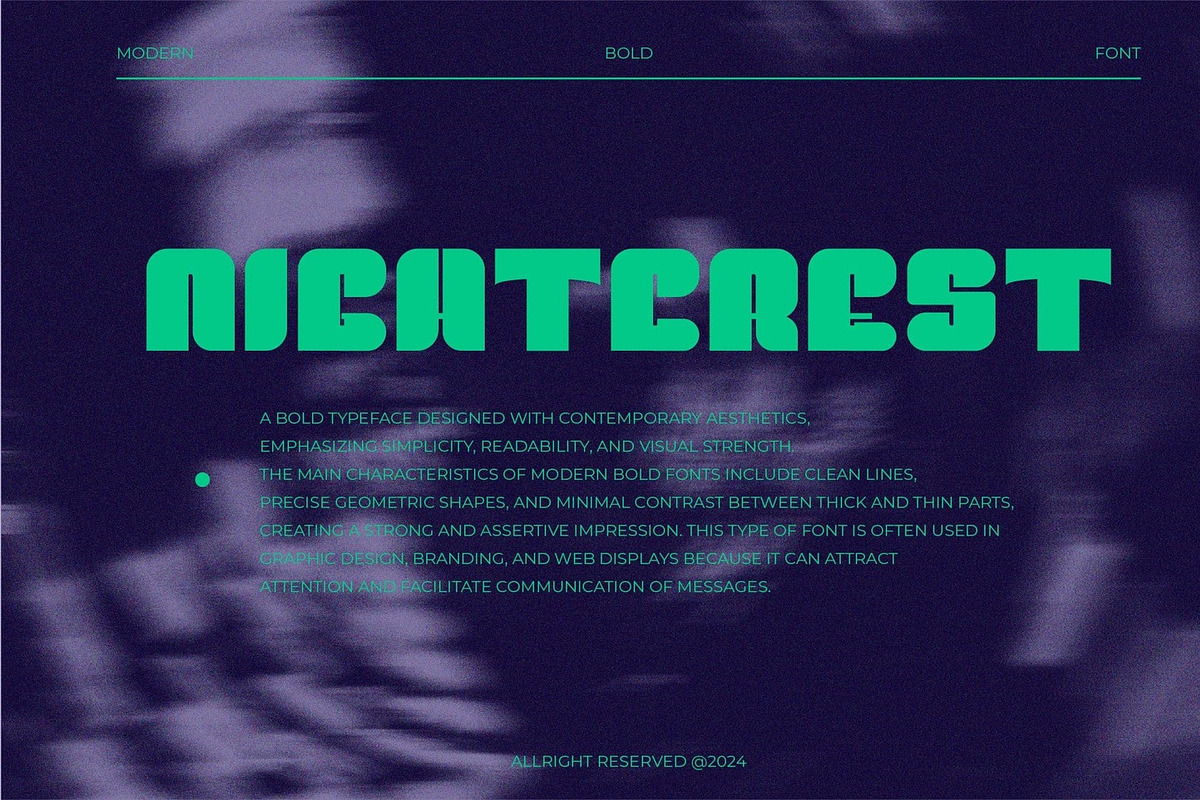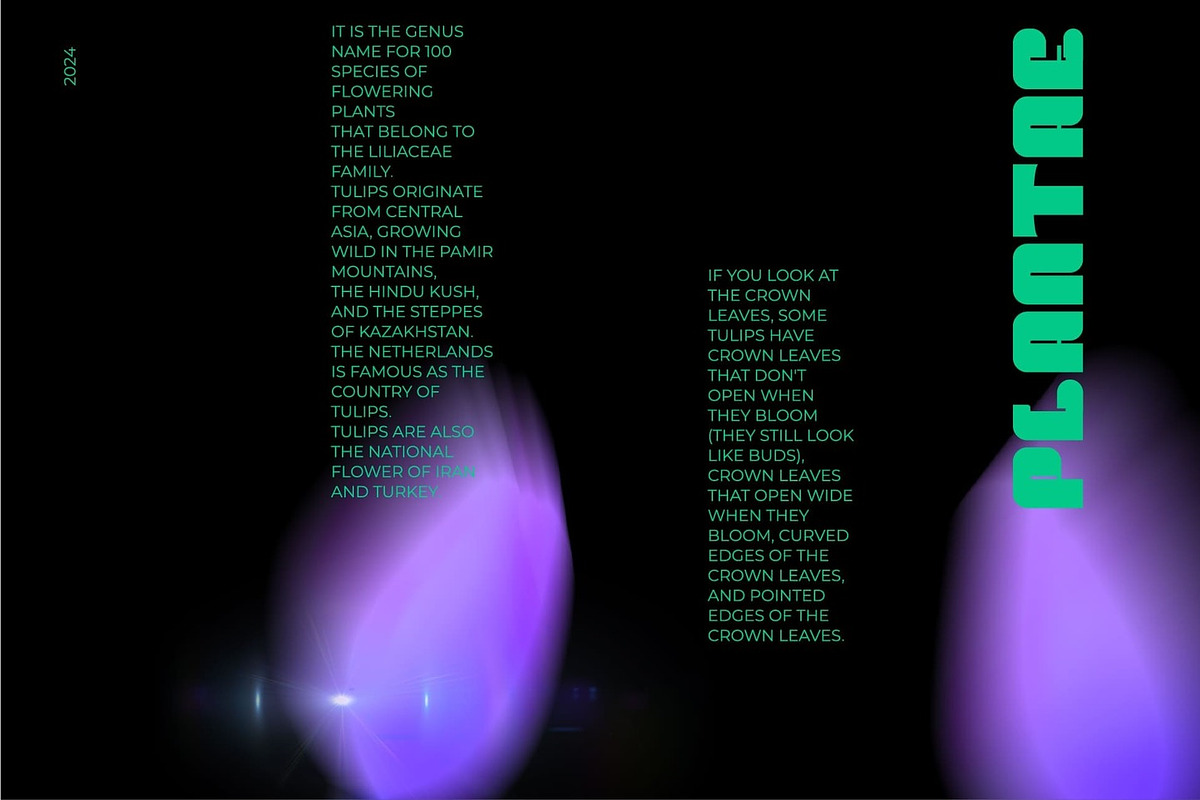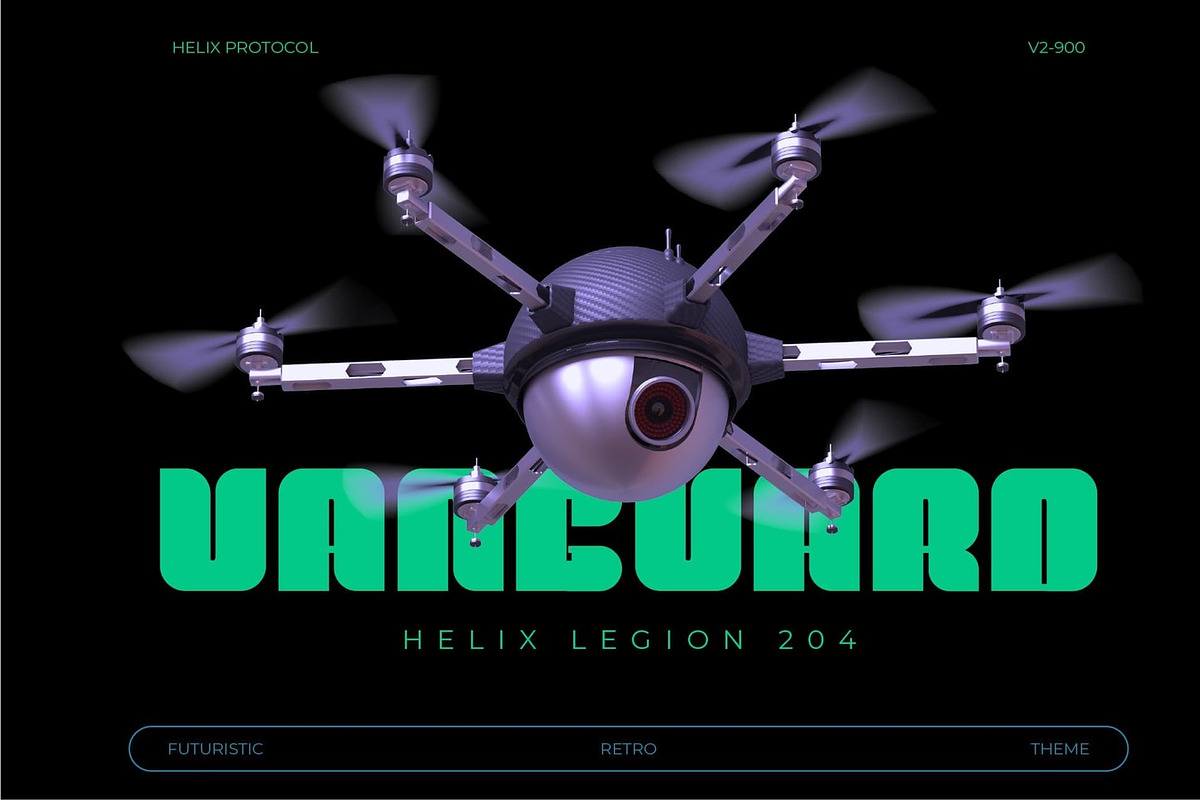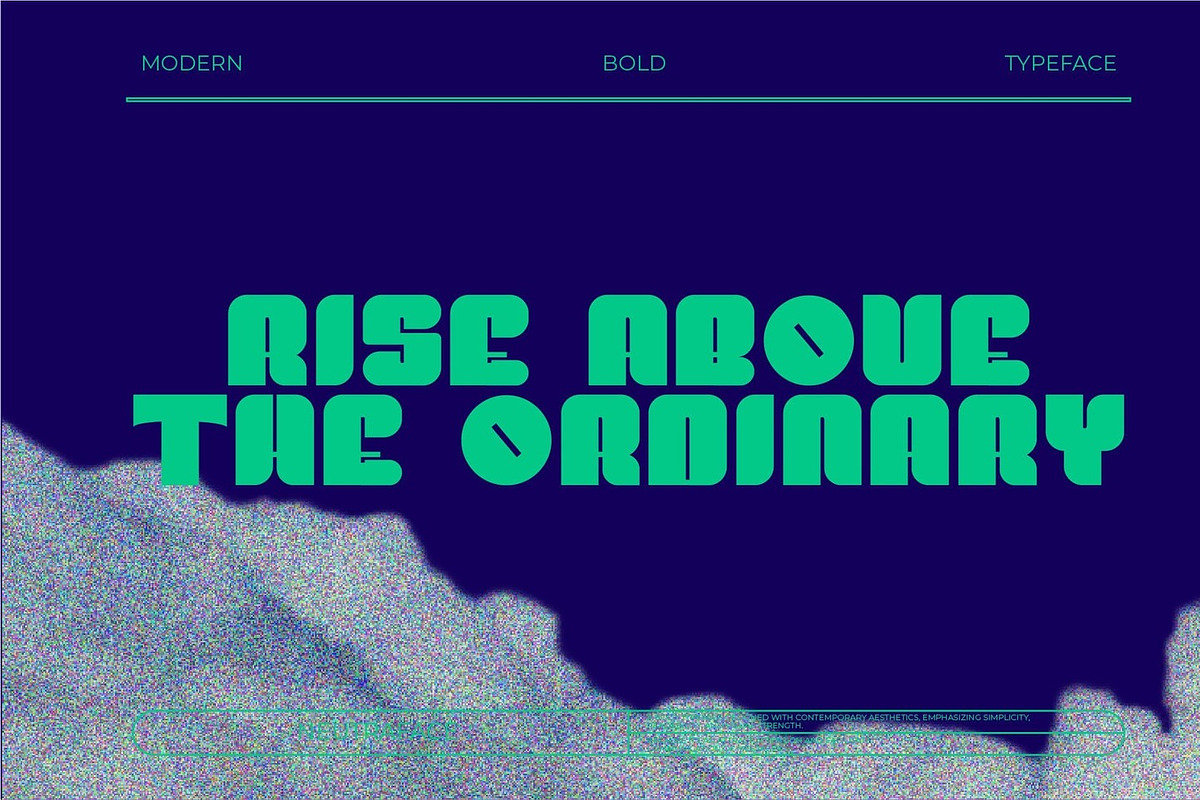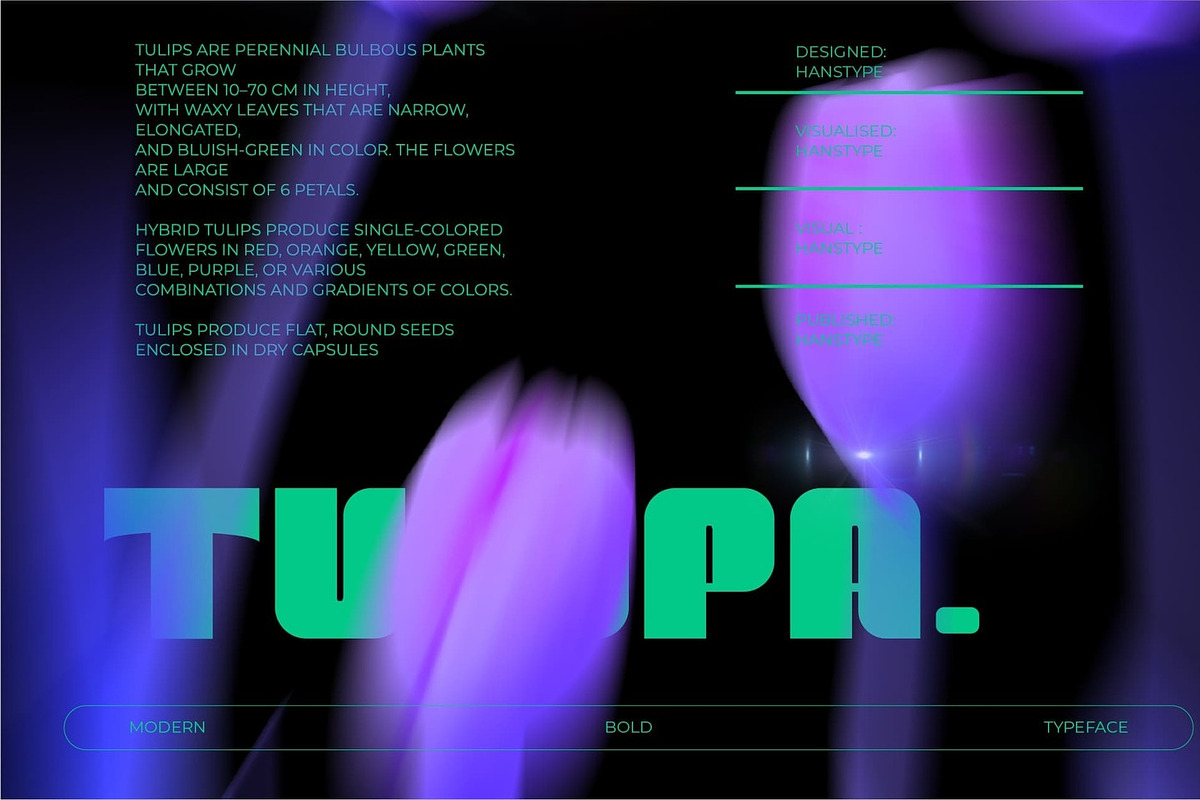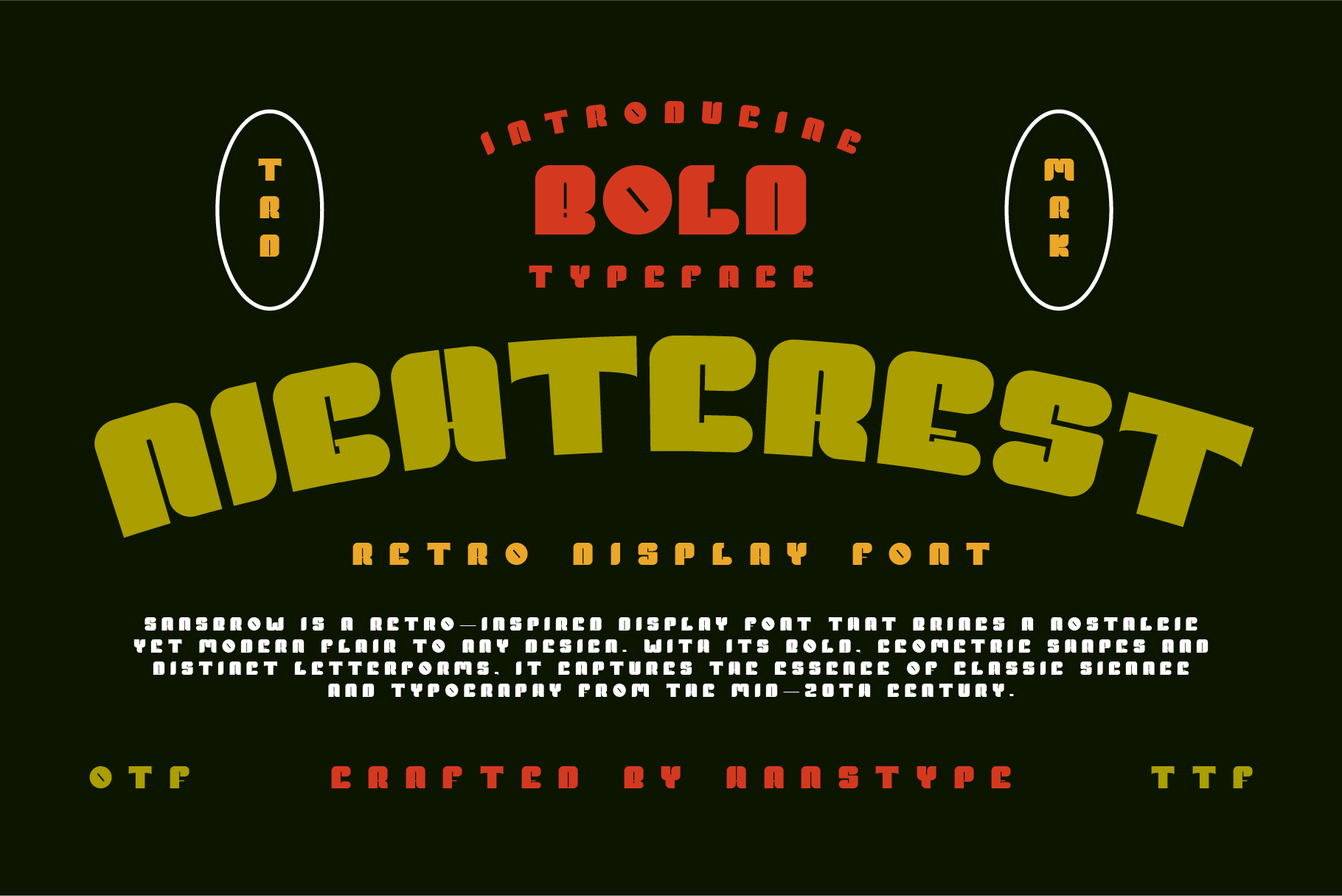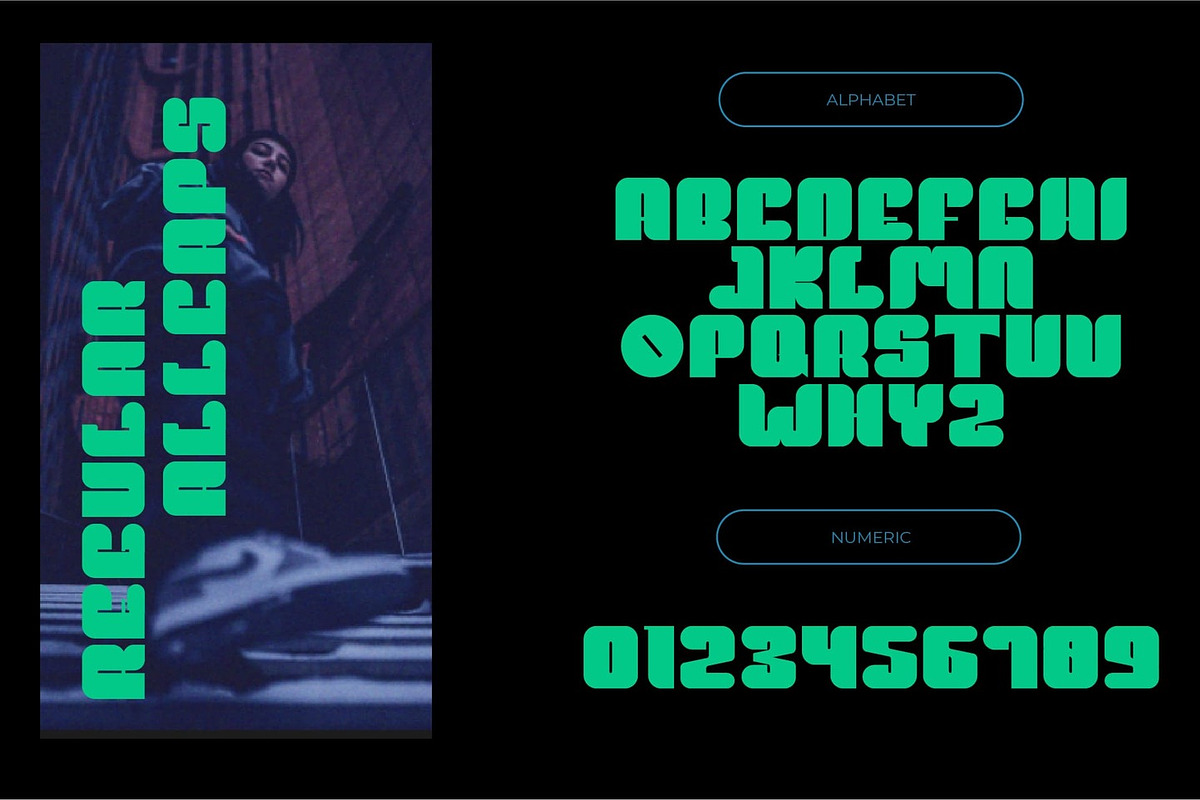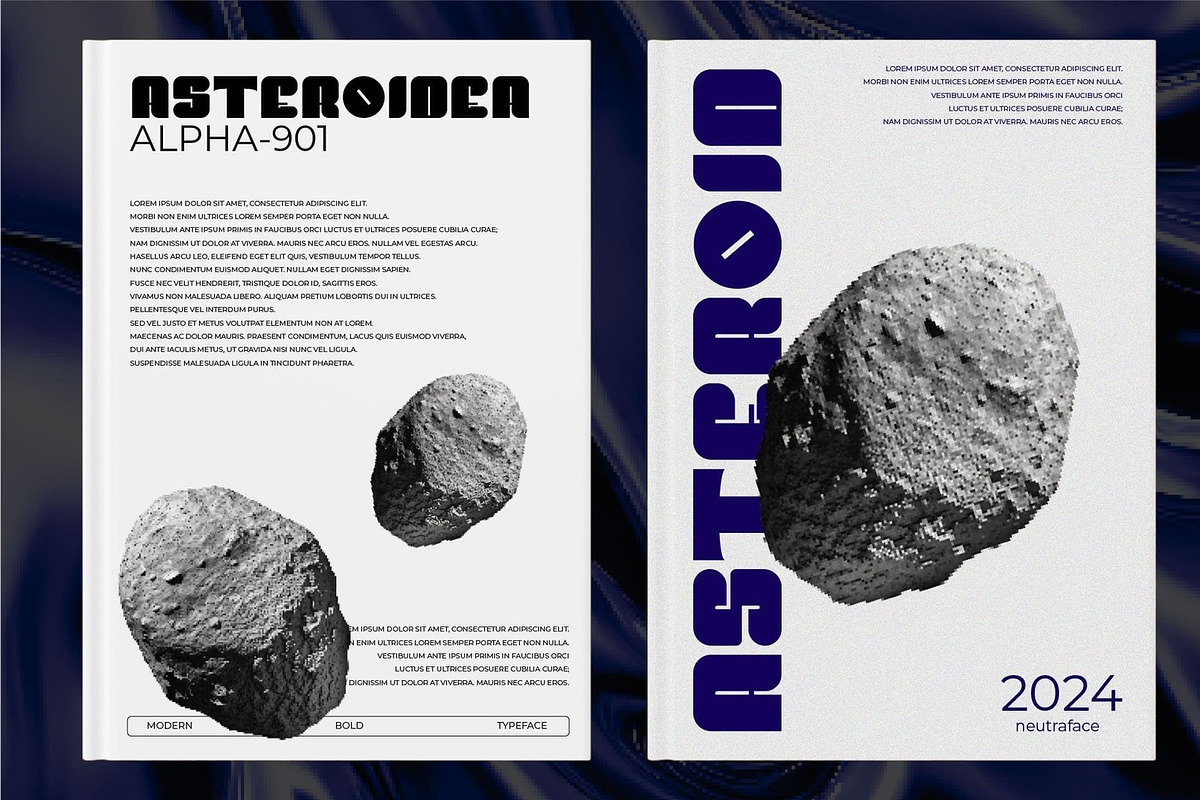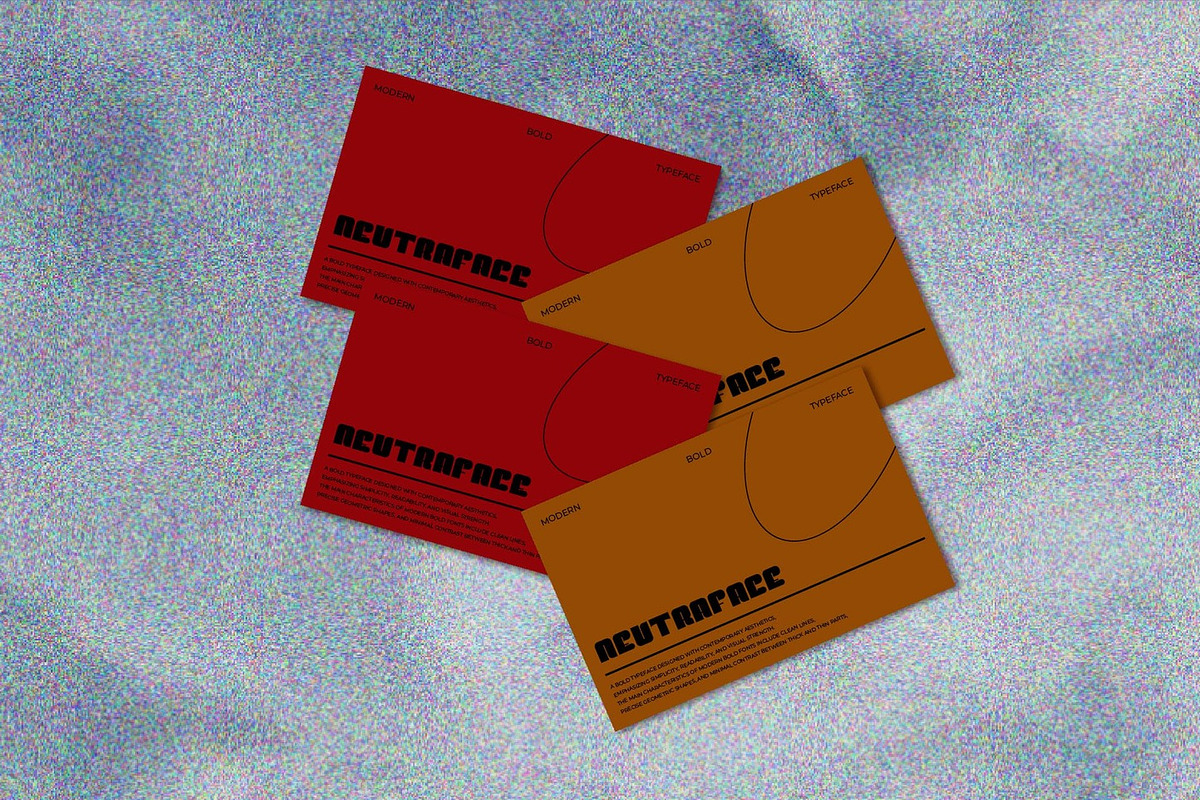
Nightcrest - Bold Font
Nightchrest a bold typeface designed with contemporary aesthetics, emphasizing simplicity, readability, and visual strength. the main characteristics of modern bold fonts include clean lines, precise geometric shapes, and minimal contrast between thick and thin parts, creating a strong and assertive impression. this type of font is often used in graphic design, branding, and web displays because it can attract attention and facilitate communication of messages.